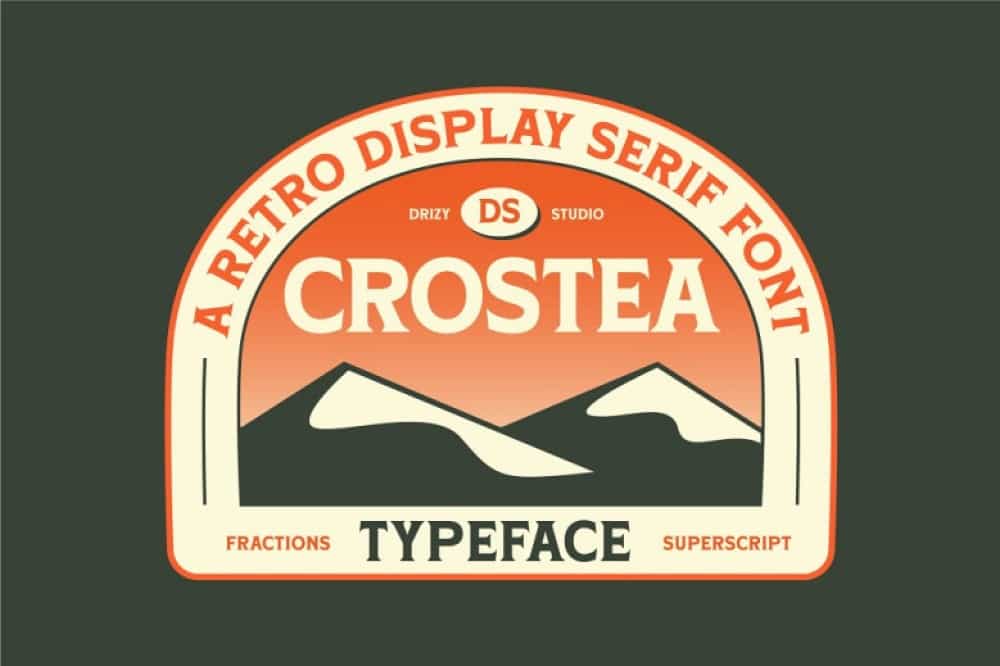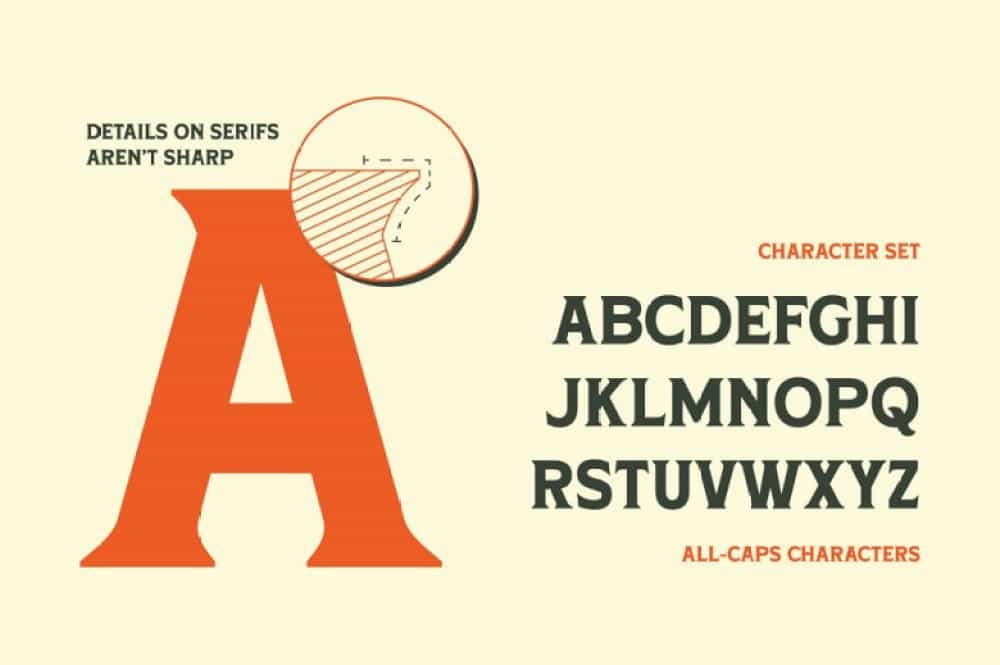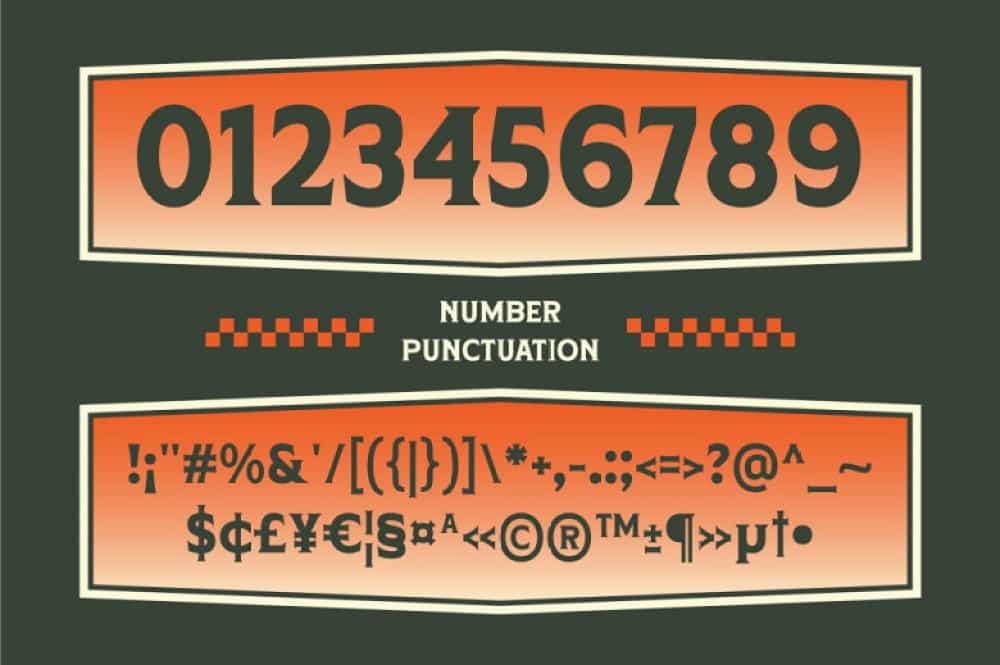
Crostea Font
Crostea is like a leap into a world of adventurous charm which is defined by Retro, Display, serif, and Adventures Patch font. Try a completely new typographic experience that is as unique as it is with our high precision created serif font. Great for enhancing the vintage feel where necessary, Crostea is more suitable for today’s use and versatile than the previous type.